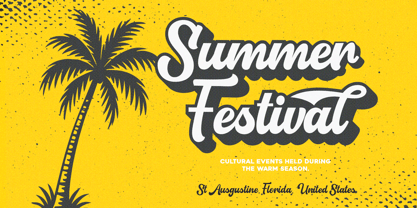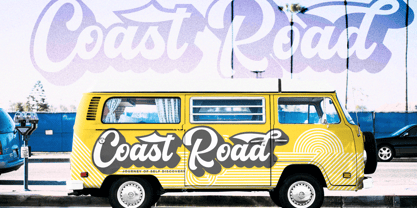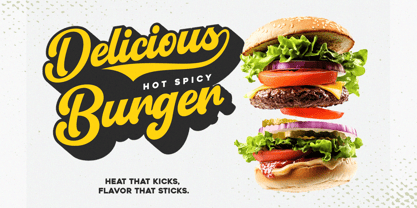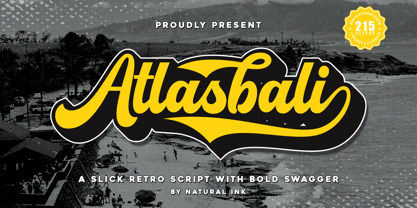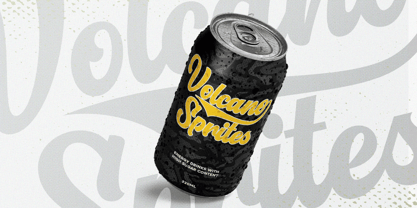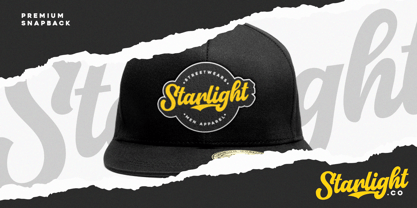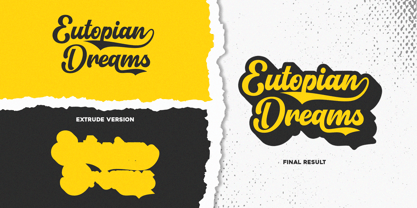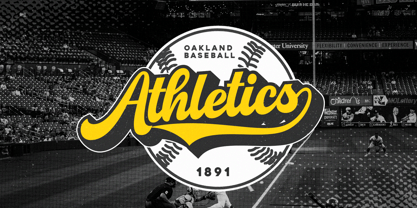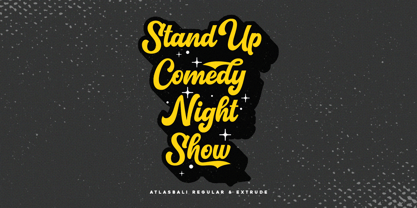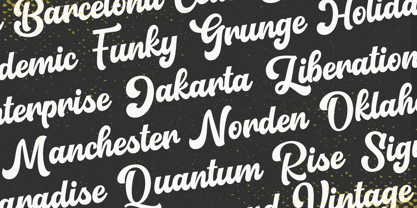
Atlas Bali
by Natural Ink
The Atlas Bali Font Family was designed by Arif Gunawan and published by Natural Ink. Atlas Bali contains 2 styles and family package options. More about this family
Atlasbali is retro script font with vintage vibes. This font is cute, whimsical, and playful.
Atlasbali has lots of extra glyphs to give the designers more options for designing with this font. It also has extrude style to give shadow or layer for the regular one.
This font is perfect for any projects, especially with vintage style, such as logo, crafting, wedding invitation, branding, sticker, sublimation, quotes, and many more.
Features:
Designers: Arif Gunawan
Foundry: Natural Ink